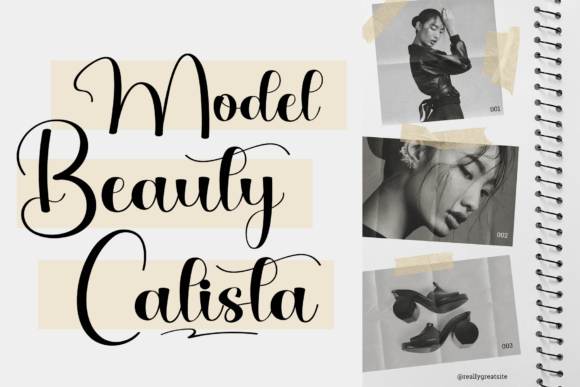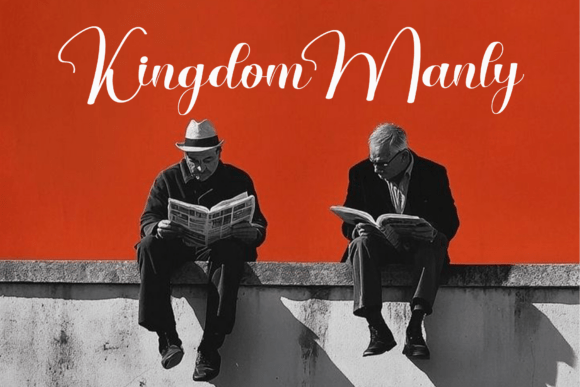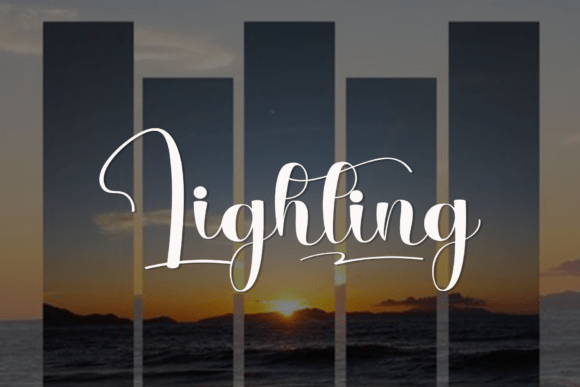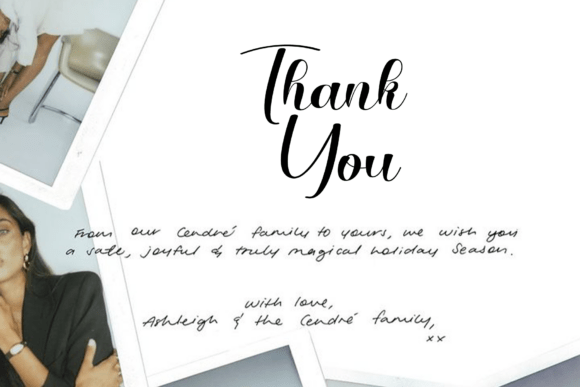
Introducing Building Font: A Bold and Expressive Handwritten Typeface
Are you looking for a font that can add a touch of personality and elegance to your designs? Look no further than Building Font, a bold and expressive handwritten typeface that is sure to make a statement. With its unique flared style and confident appearance, Building Font is perfect for a wide range of design projects, from family-themed designs to custom greeting cards and strong titles.
What Makes Building Font So Special?
Building Font features a dramatic, almost signature-like presence that is sure to grab attention. Its thick vertical strokes and sweeping horizontals give it a confident and heartfelt appearance that is perfect for designs that require a charismatic and genuine touch. Whether you’re a designer, crafter, or DIY enthusiast, Building Font is a versatile typeface that can help you create stunning and impactful designs.
Perfect for Family-Themed Designs
Building Font is a great choice for family-themed designs, such as custom t-shirts, mugs, and picture frames. Its bold and expressive style makes it perfect for creating personalized gifts that are sure to be treasured for years to come. With Building Font, you can add a touch of warmth and personality to your designs, making them truly special and meaningful.
Use Building Font for Custom Greeting Cards
Custom greeting cards are a great way to show someone you care, and Building Font is the perfect typeface to use. Its unique flared style and confident appearance make it perfect for creating cards that are both elegant and impactful. Whether you’re creating a card for a birthday, anniversary, or holiday, Building Font is sure to help you create a design that will be remembered.
Strong Titles and Headlines
Building Font is also perfect for creating strong titles and headlines that are sure to grab attention. Its bold and expressive style makes it perfect for use in advertising, marketing materials, and other applications where you want to make a statement. With Building Font, you can create titles and headlines that are both elegant and impactful, helping you to communicate your message with confidence and style.
Why Choose Building Font?
There are many reasons why Building Font is a great choice for designers and crafters. Here are just a few:
• Unique and Expressive Style: Building Font features a unique flared style that is sure to grab attention and add a touch of personality to your designs.
• Confident and Heartfelt Appearance: Building Font’s thick vertical strokes and sweeping horizontals give it a confident and heartfelt appearance that is perfect for designs that require a charismatic and genuine touch.
• Versatile and Flexible: Building Font is a versatile typeface that can be used in a wide range of design projects, from family-themed designs to custom greeting cards and strong titles.
• Elegant and Impactful: Building Font is a bold and expressive typeface that is sure to add a touch of elegance and impact to your designs.
Tips for Using Building Font
Here are a few tips for using Building Font in your designs:
• Use it for Headlines and Titles: Building Font is perfect for use in headlines and titles, where its bold and expressive style can really make an impact.
• Pair it with Other Fonts: Building Font can be paired with other fonts to create a unique and interesting design. Try pairing it with a clean and simple font for a bold and elegant look.
• Experiment with Colors and Textures: Building Font looks great in a wide range of colors and textures. Experiment with different colors and textures to find the look that works best for your design.
Font Name Building Font
Building Font is a bold and expressive handwritten typeface that is sure to add a touch of personality and elegance to your designs. With its unique flared style and confident appearance, Building Font is perfect for a wide range of design projects, from family-themed designs to custom greeting cards and strong titles. Whether you’re a designer, crafter, or DIY enthusiast, Building Font is a versatile typeface that can help you create stunning and impactful designs.